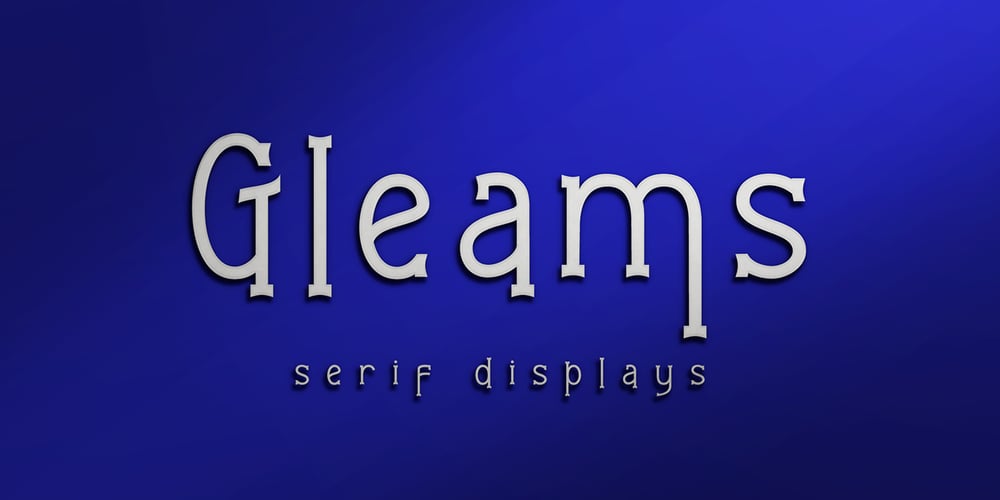
Gleams Serif Display
Gleams Serif Display font
Gleams Serif Display Font Family was designed by Cut Nurfajarlia and published by Alandya TypeFoundry. Gleams Serif Display contains 4 styles and family package options. The Gleams serif display is unique, this font and is equipped with multilingual to be able to handle most typographic applications ranging.will be perfect and look luxurious for many projects such as fashion, magazines, logos, branding, photography, invitations, quotes, blog headings, posters, advertisements, postcards, etc.The Gleams serif include ligatures, capital letters and lowercase alternate letters. You need a program that supports OpenType features like Adobe Illustrator, Adobe Photoshop CC, Adobe Indesign and Corel Draw. and you can also access alternative flying machines via Font Book (Mac users) or Windows Character Map (Windows users).For sans style please check at https://www.myfonts.com/fonts/alandya-typefoundry/gleams-sans-displayFor serif playful style please check at https://www.myfonts.com/fonts/alandya-typefoundry/gleams-serif-playfulHappy Designing . . .